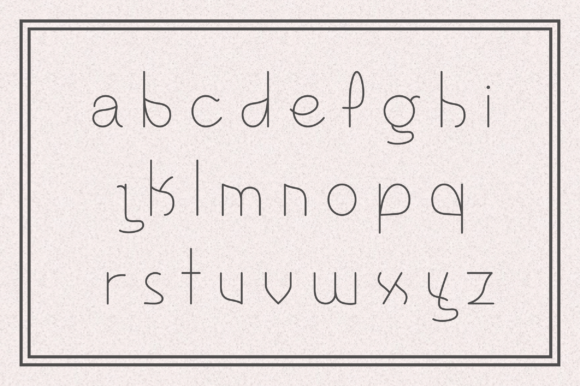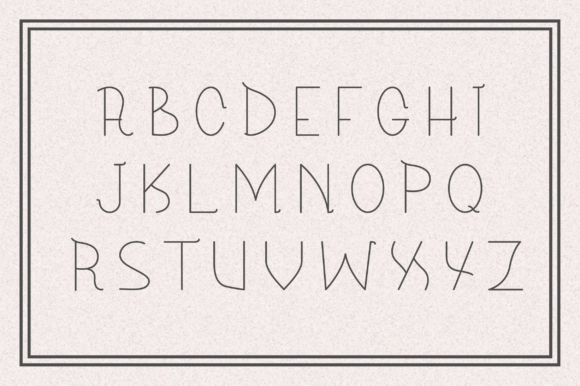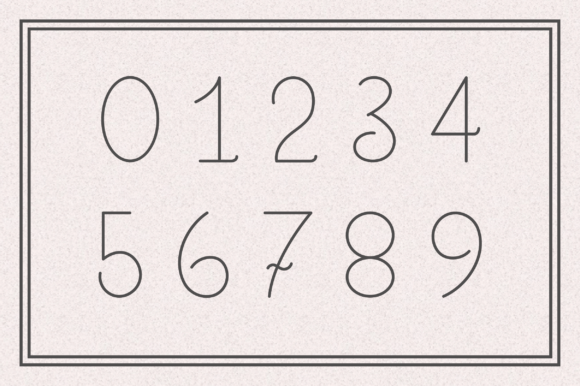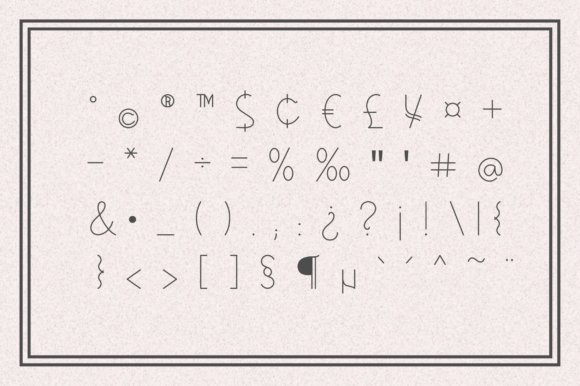
A Capitol Font: Elevate Your Designs with a Touch of Simplicity
In the world of typography, fonts play a crucial role in conveying messages, expressing emotions, and creating visual identities. For designers and crafters, finding the perfect font can be a daunting task, but today, we’re excited to introduce you to A Capitol Font, a thin lettered and simple sans serif font that can elevate your creative projects to new heights.
The Simplicity and Versatility of A Capitol Font
A Capitol Font is a sleek and modern sans serif font that boasts a remarkably simple design. Its thin letters exude elegance and sophistication, making it an ideal choice for a wide range of projects. Whether you’re working on a branding campaign, a website design, or a craft project, A Capitol Font can easily be matched to your needs. Its versatility is one of its standout features, allowing you to pair it with a variety of styles and themes to create something truly unique.
Key Features of A Capitol Font
• Thin Lettered: A Capitol Font features thin letters that are perfect for creating a clean and minimalist look.
• Simple Sans Serif: The font’s simple sans serif design makes it easy to read and versatile for various applications.
• Highly Versatile: A Capitol Font can be used in a wide range of projects, from digital designs to print materials.
• Elegant and Sophisticated: The font’s elegant design makes it perfect for projects that require a touch of sophistication.
How to Use A Capitol Font in Your Projects
Adding A Capitol Font to your creative projects is easy. Here are a few ways you can incorporate it into your designs:
• Branding and Logo Design: Use A Capitol Font to create a clean and modern logo that reflects your brand’s personality.
• Website Design: Pair A Capitol Font with other fonts to create a visually appealing and user-friendly website.
• Crafting and DIY Projects: Add a touch of elegance to your craft projects, such as invitations, cards, and posters, with A Capitol Font.
• Social Media Graphics: Use A Capitol Font to create eye-catching social media graphics that stand out from the crowd.
Tips for Pairing A Capitol Font with Other Fonts
Pairing A Capitol Font with other fonts can create a unique and visually appealing design. Here are some tips to keep in mind:
• Contrast: Pair A Capitol Font with a bold or script font to create contrast and add visual interest.
• Harmony: Pair A Capitol Font with a similar sans serif font to create a harmonious and cohesive look.
• Experiment: Don’t be afraid to experiment with different font combinations to find the perfect pairing for your project.
A Capitol Font is a versatile and elegant sans serif font that can elevate your creative projects to new heights. Its simplicity and thin lettered design make it perfect for a wide range of applications, from branding and website design to crafting and DIY projects. With its highly versatile nature and easy pairing with other fonts, A Capitol Font is a great addition to any designer’s or crafter’s toolkit. So why not give it a try and see how it can make your projects stand out?